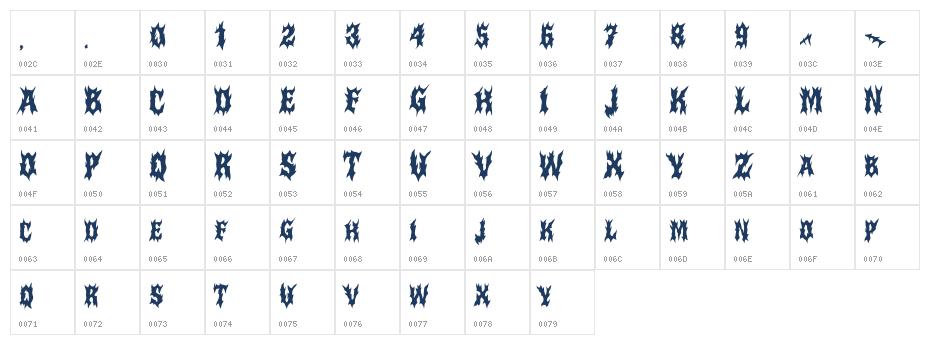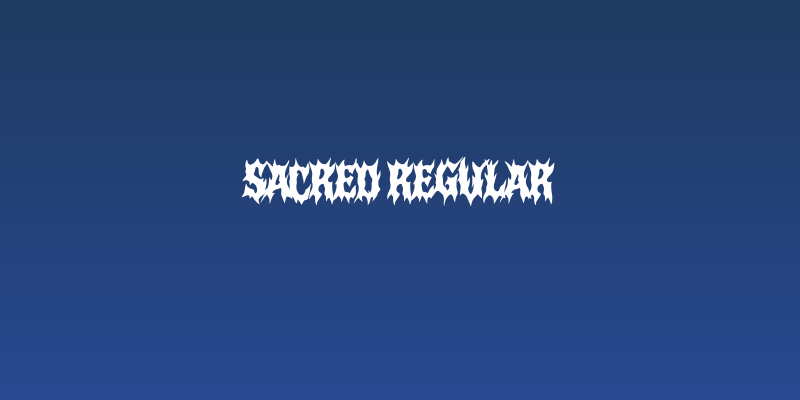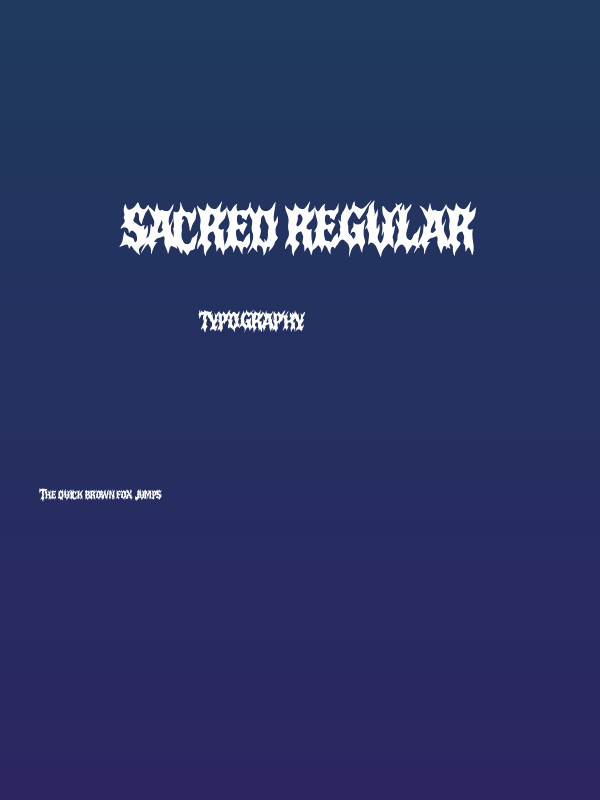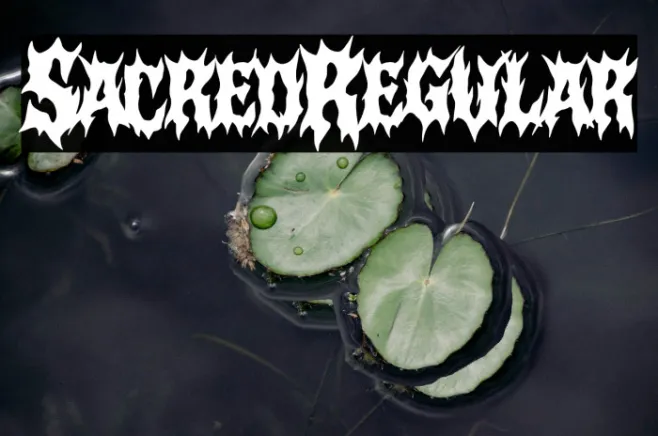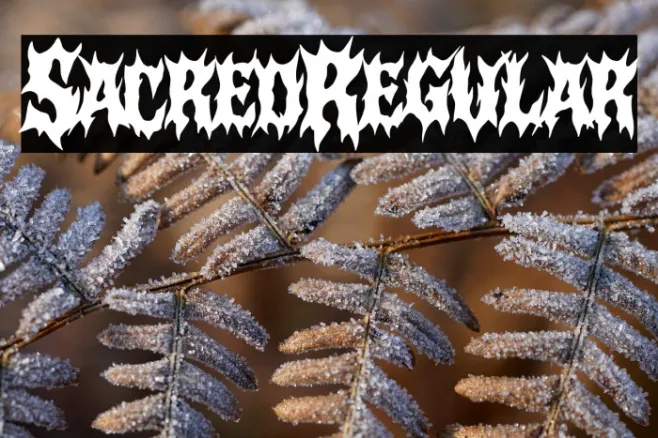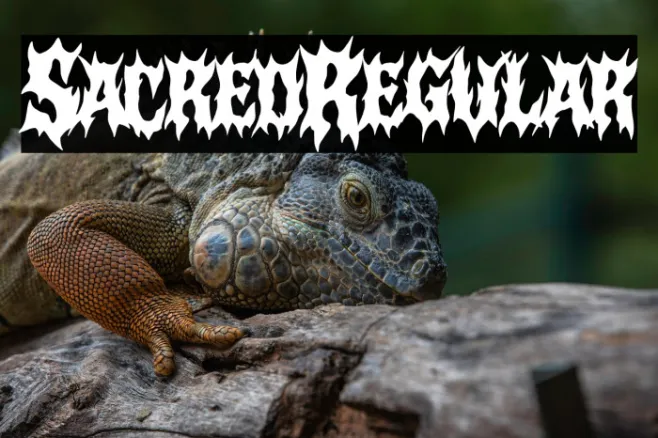
Sacred Regular Font
Sacred Regular Description
A highly decorative, jagged, and spiky display font with a horror or heavy metal aesthetic.
| Overall Style | Edgy, Horror, Heavy Metal |